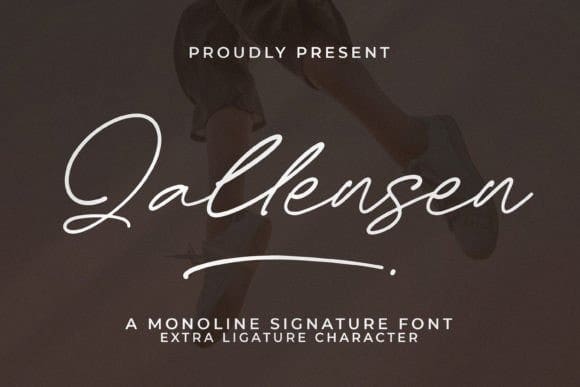
Qallensen Signature Font
Qallensen Signature Font, is a beautiful monoline handwritten font perfect for any project such as logos, branding projects, homewares designs, product packaging, mugs, quotes, posters, shopping bags, T-shirts, book covers, business cards, invitation cards, greeting cards, labels, photography, watermarks, special events, and all your other luxury projects that require a premium taste.